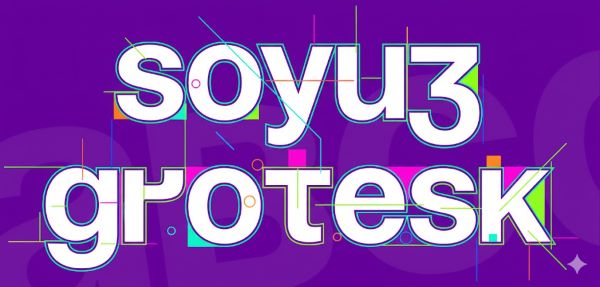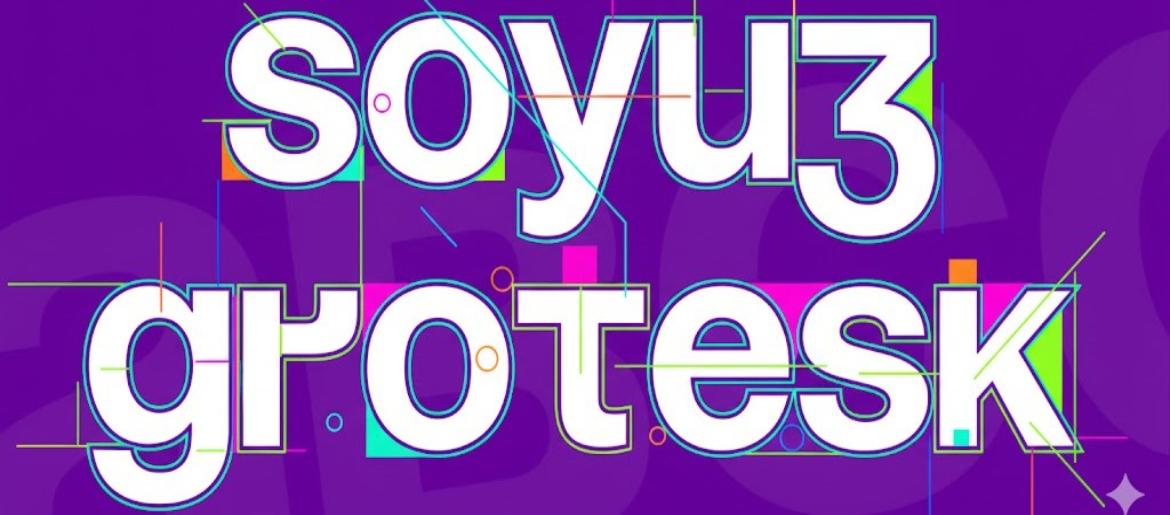
Soyuz Grotesk Font
Soyuz Grotesk Font showcases The Temporary State’s masterful craftsmanship through its striking sans-serif design optimized for display excellence. This distinguished typeface features an exquisite character collection including lowercase letters, numerals, and symbols, all enhanced by comprehensive extended language support. Soyuz Grotesk effortlessly elevates design projects to unprecedented levels of sophistication and professionalism, delivering bold visual impact while maintaining exceptional versatility across diverse creative applications from branding to editorial layouts.